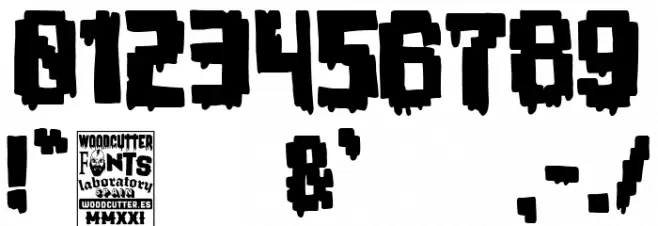
Retro Arcade Terror Font
Retro Arcade Terror Description
This font exudes a bold, retro vibe with its chunky, pixelated letterforms reminiscent of classic arcade games. Each character appears as if it is melting or dripping, adding a horror or spooky theme to its overall design. The uppercase and lowercase letters maintain a consistent style, with exaggerated serifs and a blocky appearance. The numbers and special characters follow the same aesthetic, ensuring a cohesive look across all text. This font is perfect for projects that require a nostalgic yet eerie touch, combining elements of vintage gaming with a horror twist.
A bold, retro font with a pixelated, dripping style ideal for spooky themes from Uncategorized fonts.
- Font: Retro Arcade Terror
- Proposed Projects: Ideal for Halloween-themed posters, retro game designs, horror movie titles, and spooky event invitations.
- Overall Style: Vintage, Decorative
Retro Arcade Terror UPPERCASE
Retro Arcade Terror LOWERCASE
Retro Arcade Terror OTHER CHARS